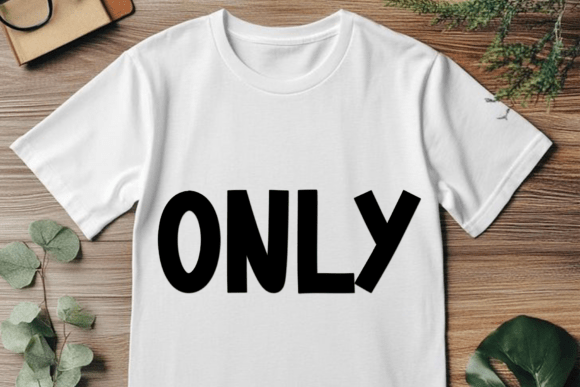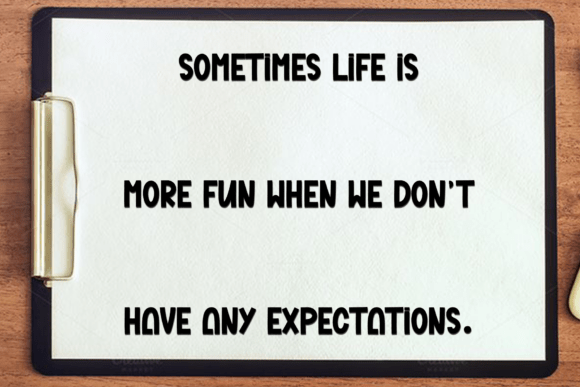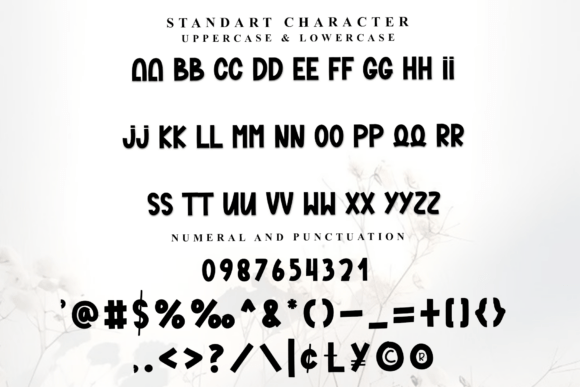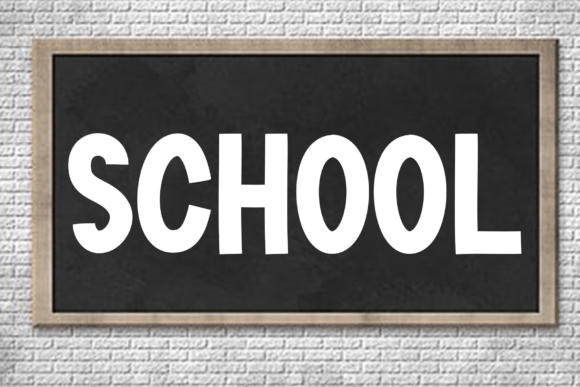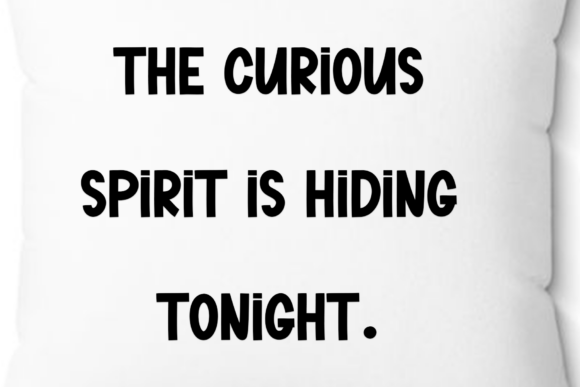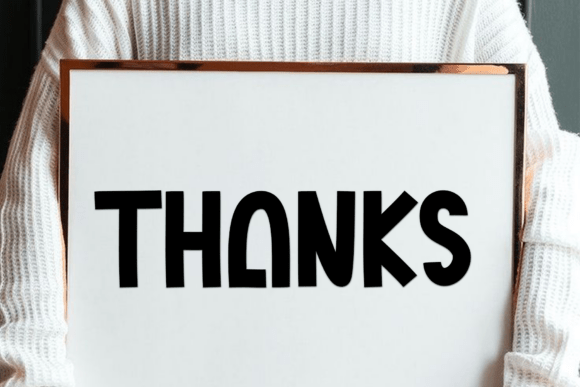
Discover the Beauty of Amellia Font: Elevate Your Designs with its Unique Touch
In the world of typography, fonts play a crucial role in making or breaking a design. A well-chosen font can elevate your creative project, making it stand out from the crowd. If you’re a designer, crafter, or creative enthusiast looking for a font that adds a touch of elegance and uniqueness to your work, look no further than Amellia Font. In this article, we’ll explore the features, benefits, and uses of Amellia Font, and why it’s becoming a favorite among designers and crafters.
What is Amellia Font?
Amellia Font is a beautifully designed font with a soft, unique touch. Its distinctive strokes give it a special character, making it both meaningful and versatile for future use. With a wide range of characters, Amellia Font is perfect for design projects, crafts, and other creative works. Whether you’re working on a logo, brochure, or social media graphics, Amellia Font is sure to make your designs shine.
Key Features of Amellia Font
- Unique and Eye-Catching Design: Amellia Font boasts a distinctive and stylish design that sets it apart from other fonts.
- Soft and Elegant Touch: The font’s soft and elegant touch makes it perfect for designs that require a touch of sophistication.
- Versatile and Meaningful: Amellia Font’s distinctive strokes give it a special character, making it both meaningful and versatile for future use.
- Wide Range of Characters: With various characters, Amellia Font is perfect for design projects, crafts, and other creative works.
Benefits of Using Amellia Font
So, why choose Amellia Font for your design projects? Here are just a few benefits of using this beautiful font:
- Enhance Your Designs: Amellia Font will elevate your designs, making them appealing to many audiences across different artistic and creative fields.
- Perfect for Various Projects: Whether you’re working on a logo, brochure, social media graphics, or craft project, Amellia Font is the perfect choice.
- Stand Out from the Crowd: With its unique and eye-catching design, Amellia Font will help your designs stand out from the crowd.
Who Can Benefit from Amellia Font?
Amellia Font is perfect for a wide range of designers, crafters, and creative enthusiasts, including:
- Graphic Designers: Amellia Font is perfect for graphic designers looking for a unique and elegant font for their designs.
- Crafters: Whether you’re working on a craft project, such as making cards, gift tags, or scrapbooking, Amellia Font is a great choice.
- Social Media Influencers: Amellia Font is perfect for social media influencers looking to create engaging and stylish graphics.
- Small Business Owners: Amellia Font is a great choice for small business owners looking to create professional and elegant branding materials.
In conclusion, Amellia Font is a beautiful and eye-catching font that can elevate your designs and make them stand out from the crowd. With its unique and elegant design, Amellia Font is perfect for a wide range of design projects, crafts, and creative works. Its compatibility with various applications makes it easy to use and integrate into your designs. Whether you’re a designer, crafter, or creative enthusiast, Amellia Font is a great choice for anyone looking to add a touch of elegance and sophistication to their work.